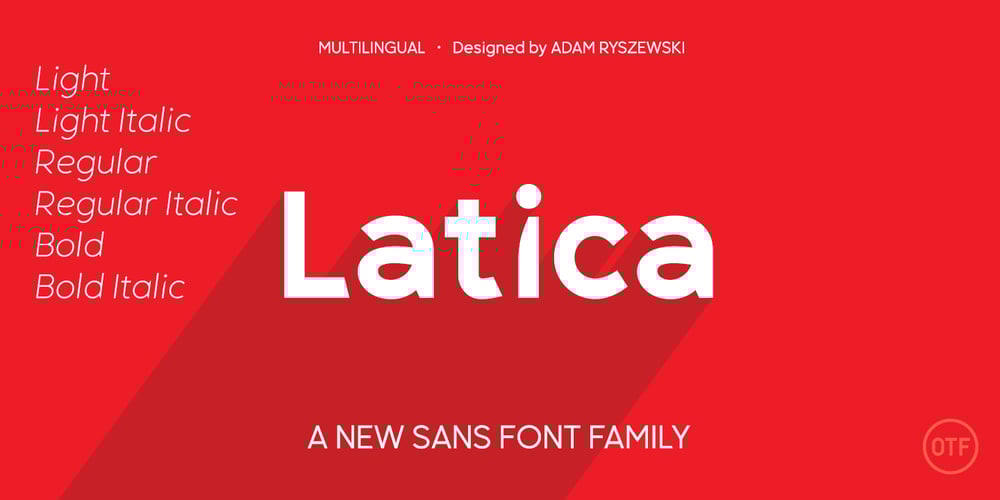
Latica Font Family was designed by Adam Ryszewski and published by Vertigo. Latica contains 6 styles and family package options. Latica is a new, original, geometric, sans-serif font family, graphically attractive with both upper and lower case letters. Fonts are spaced and mastered for optimal readability. The typeface is versatile and can be successfully used in magazines, websites, posters, brandings, etc. It provides multilingual support.